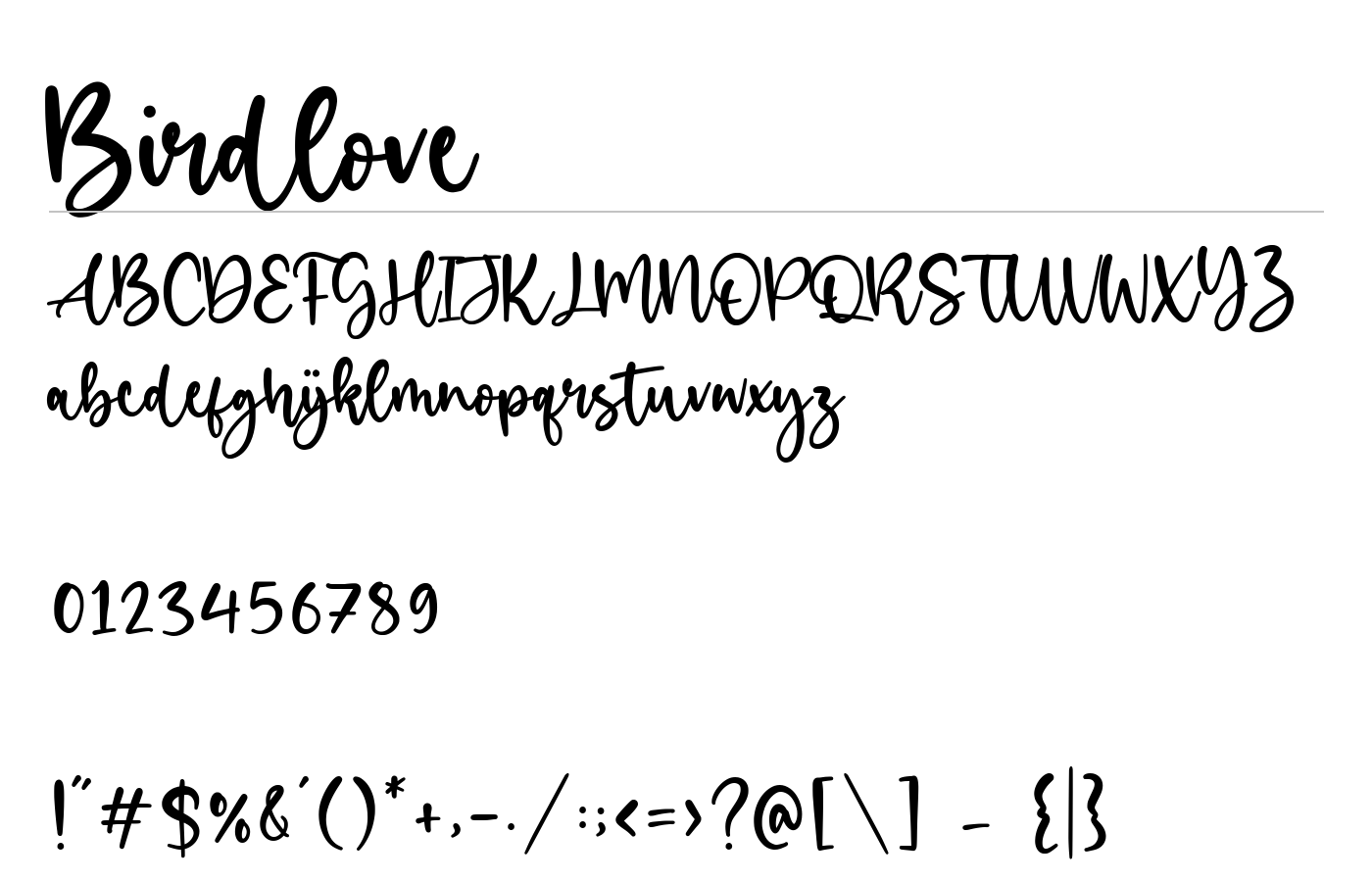
Birdlove Font is a charming handwritten script with a casual, friendly vibe, featuring smooth, slightly varied stroke widths and graceful letterforms that flow naturally. Its upright style and clear legibility make it perfect for creative projects, branding, invitations, and any design that aims to feel warm and approachable. This font works well in both headlines and short body text, bringing a playful yet elegant touch to your work.
Birdlove Font
About Birdlove Font
| Font family | Birdlove Font |
| Designer | Letterative Studio |